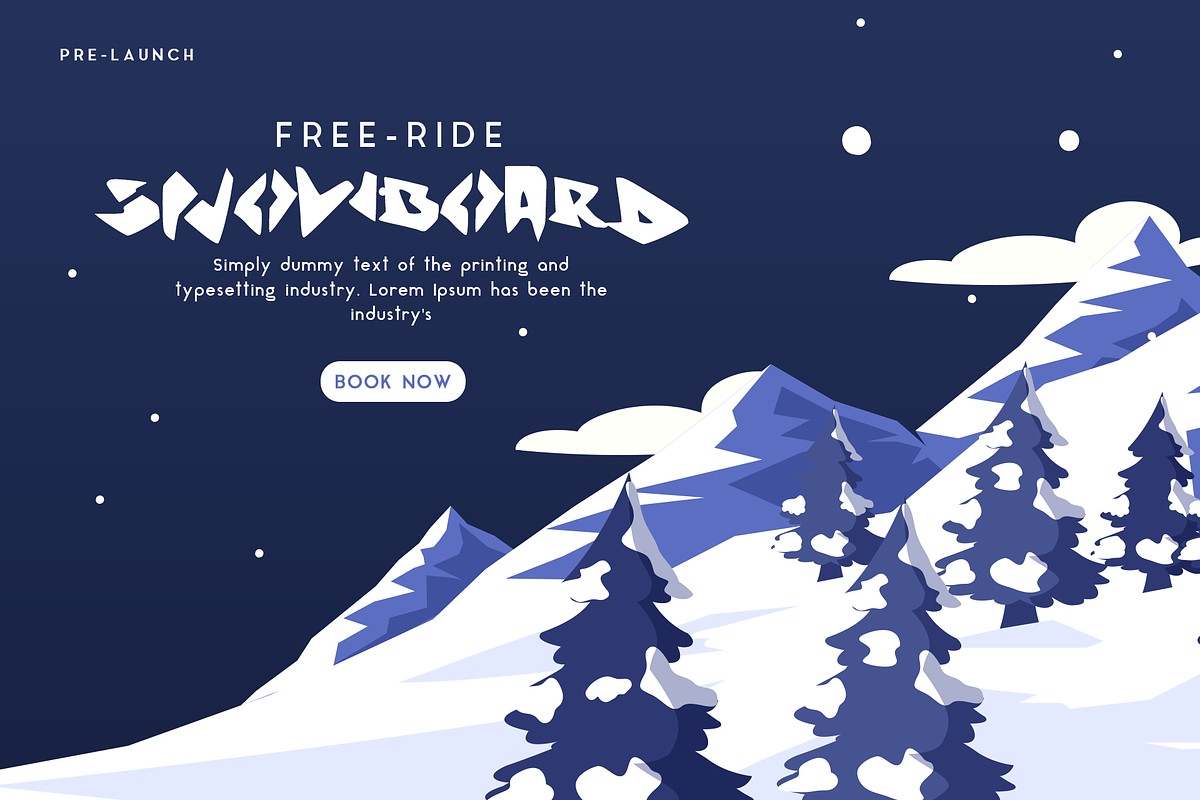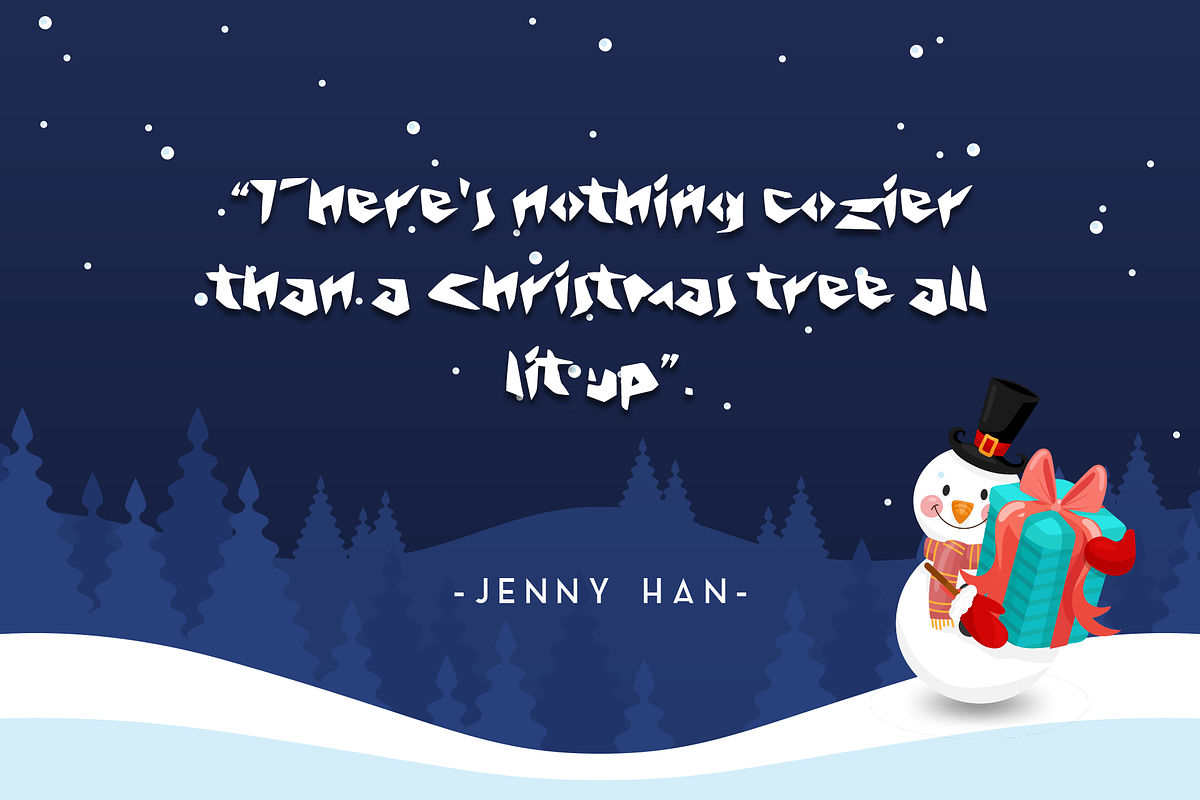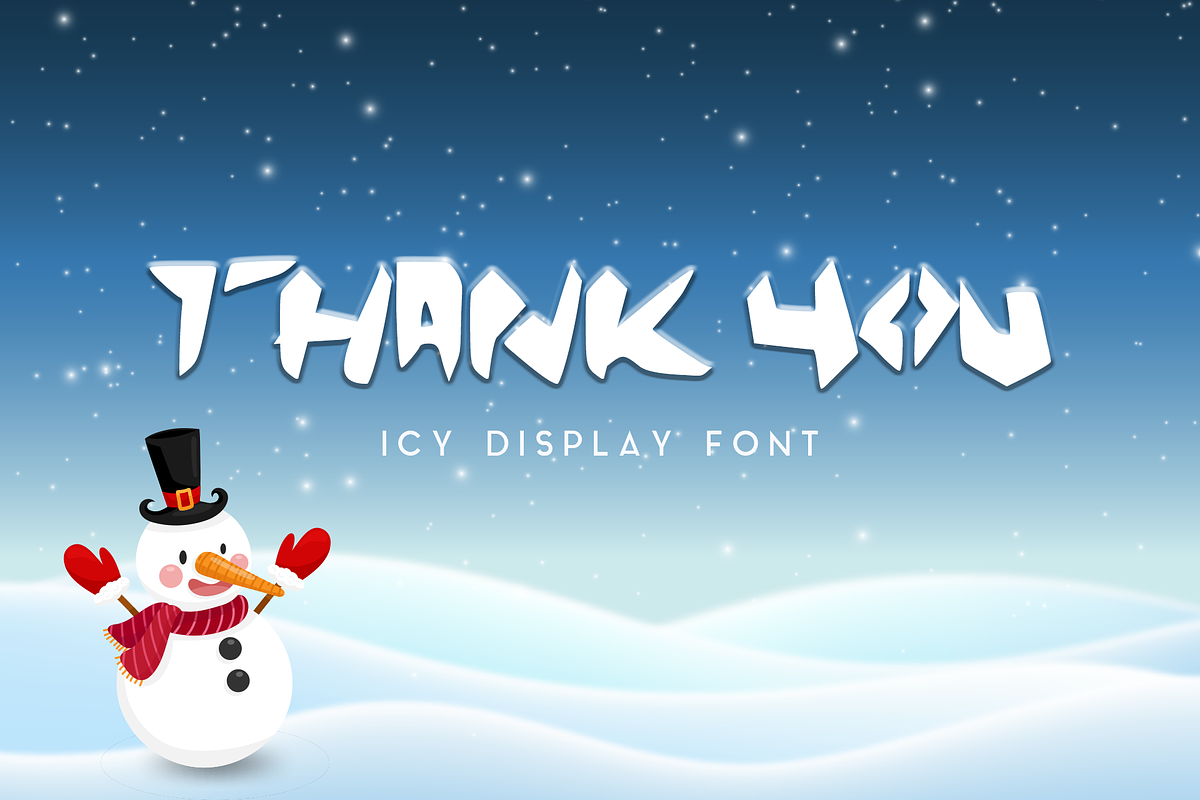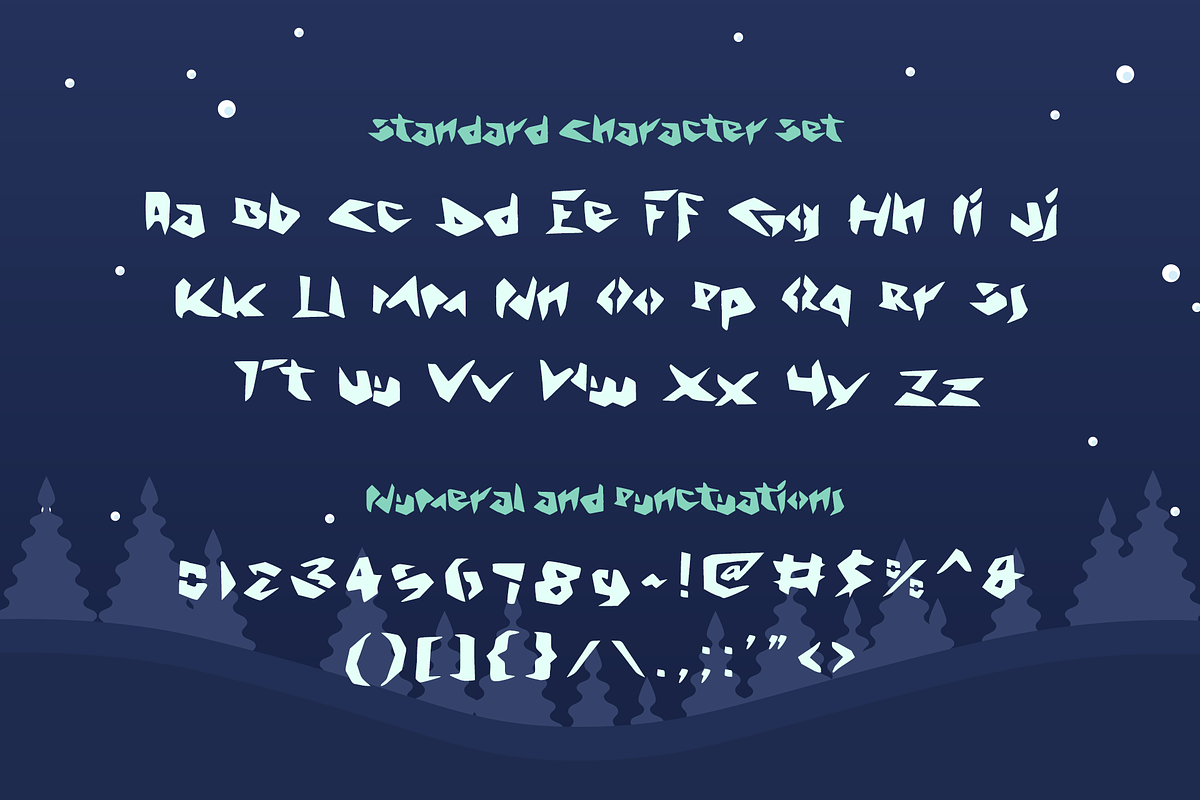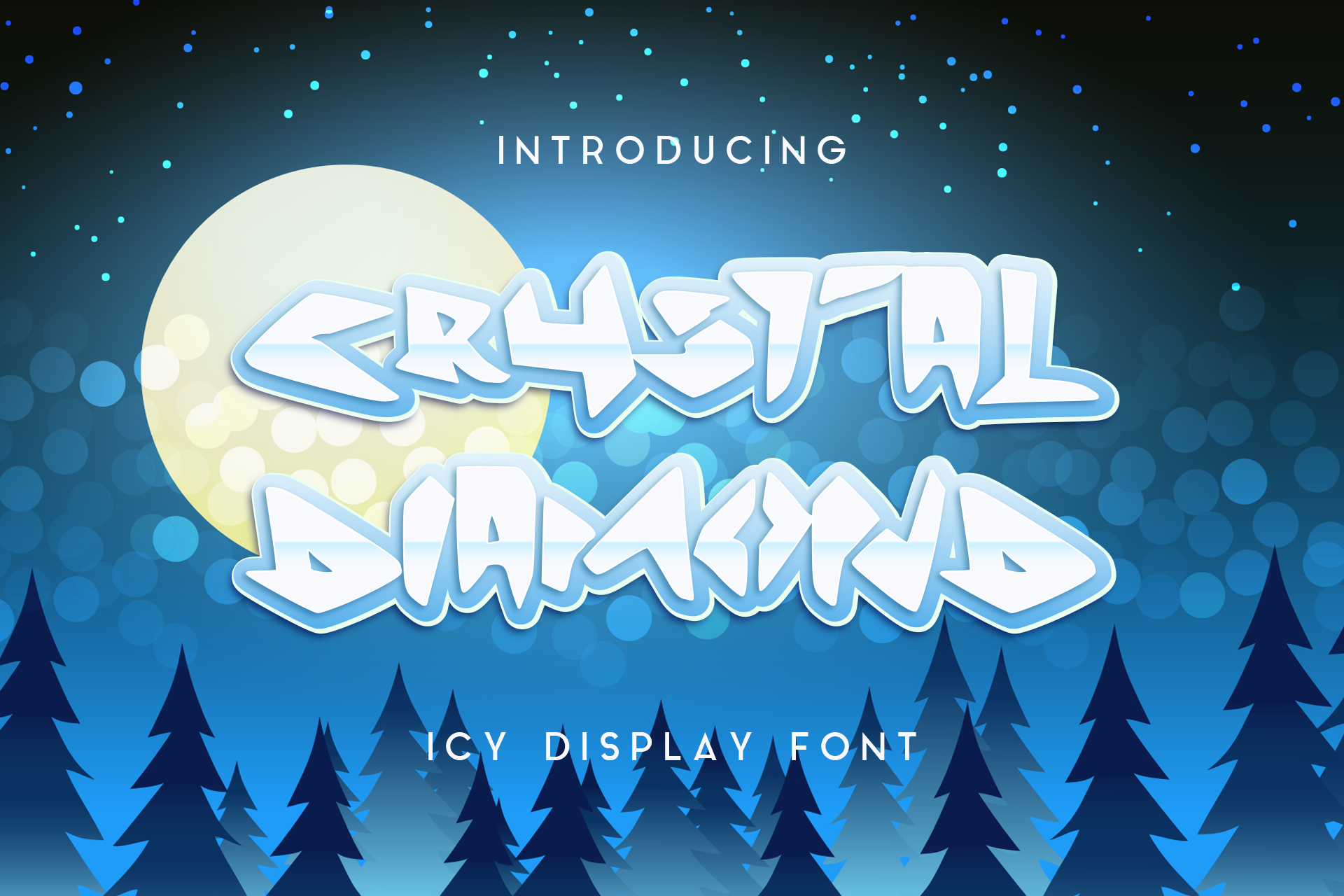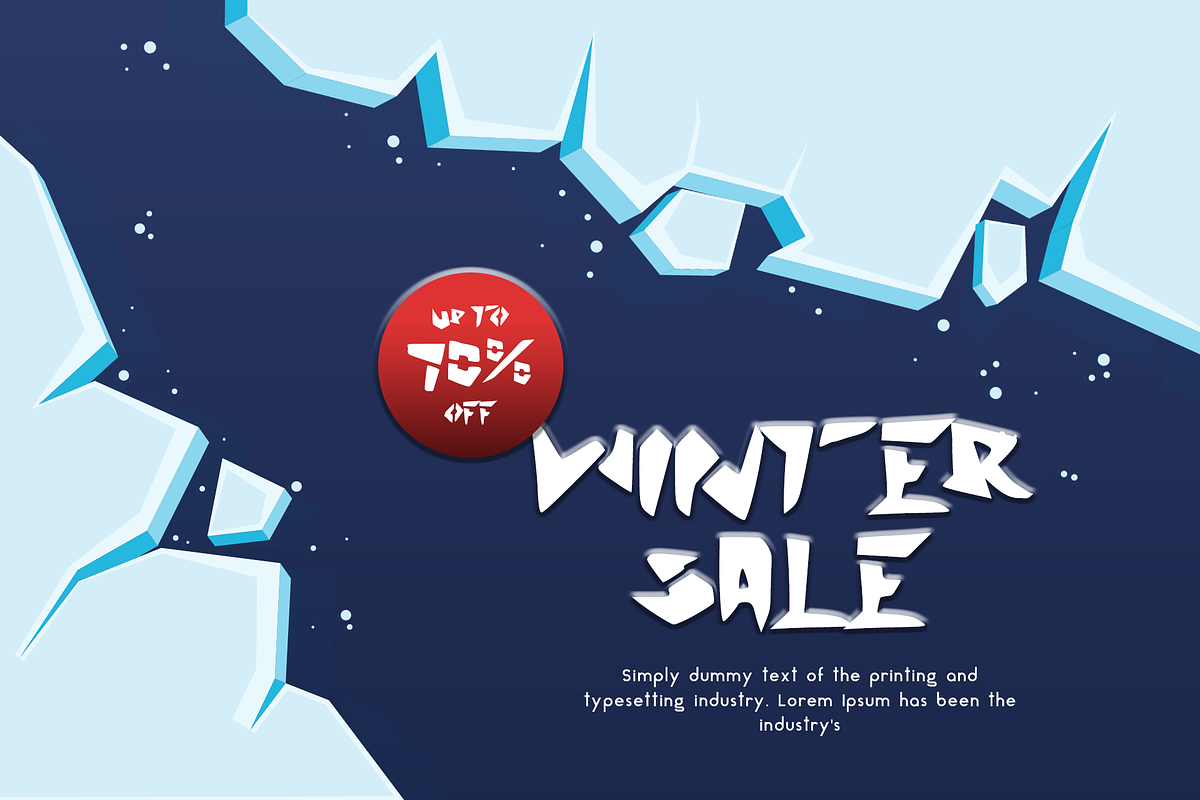
Crystal Diamond Icy Display Font
Crystal-Diamond Icy Display Font, is our new font and suitable for mockup or any work.
Great for Sticker, Invitation Card, Brochure, etc.